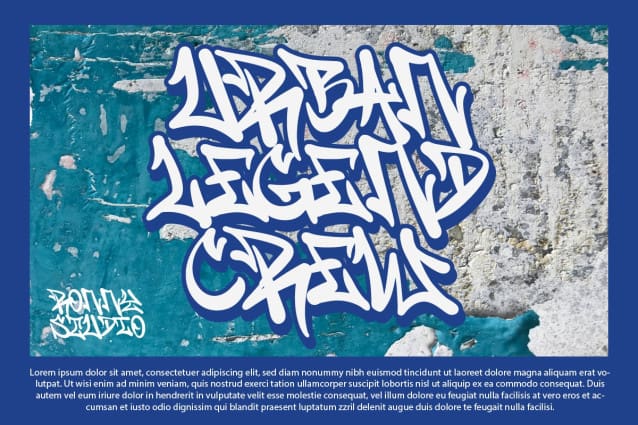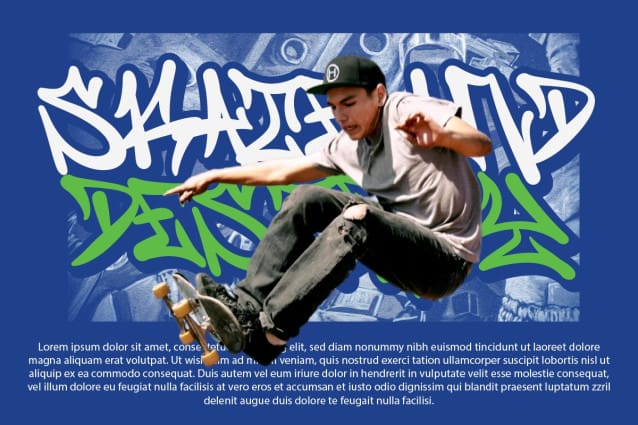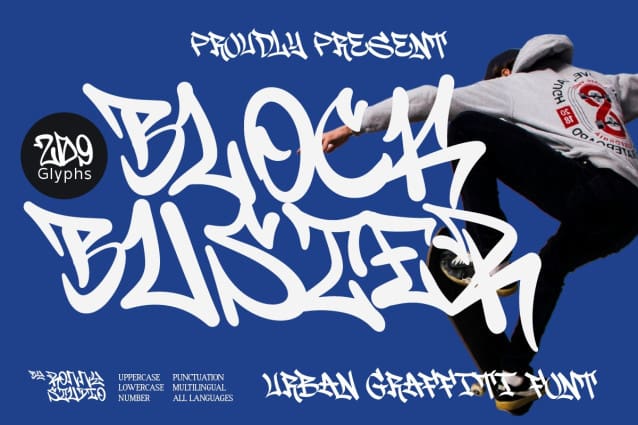
Block Buster Font
Block Buster Font, a bold urban graffiti font designed to bring the raw energy and dynamic style of street art into your creative projects. With its edgy, handcrafted letterforms, Block Buster captures the rebellious spirit of graffiti culture, making it perfect for posters, album covers, branding, merchandise, social media graphics, and more.
This font is all about attitude and expression, combining bold shapes and high-impact visuals to make your designs impossible to ignore.